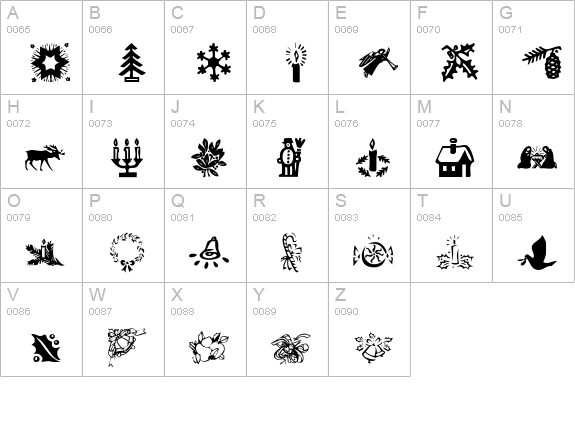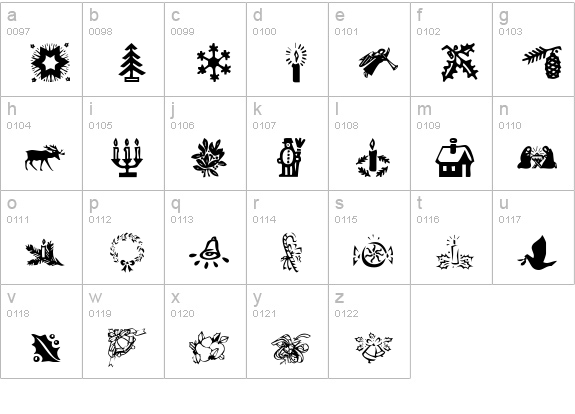
KR Christmas Time 2 Font Details
The KR Christmas Time 2 font is a whimsical and festive typeface perfect for adding a touch of holiday cheer to your design projects. With its playful shapes and decorative elements, this font captures the magic of the Christmas season. Whether you're creating holiday cards, invitations, or social media graphics, KR Christmas Time 2 is sure to bring joy and warmth to your designs. Best of all, this font is completely free to download at FontsMarket.com! Don't miss out on the opportunity to add this delightful font to your collection and spread some holiday spirit in your projects. Download KR Christmas Time 2 today and let your creativity shine during the most wonderful time of the year.